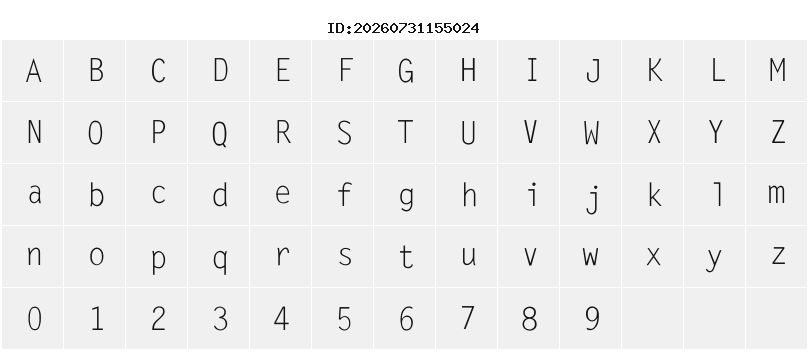
About LetterGothic-Normal.ttf
LetterGothic-Normal.ttf is a modern, elegant sans-serif font designed for ultimate readability and visual harmony. Perfect for branding, headlines, web design, and print materials.